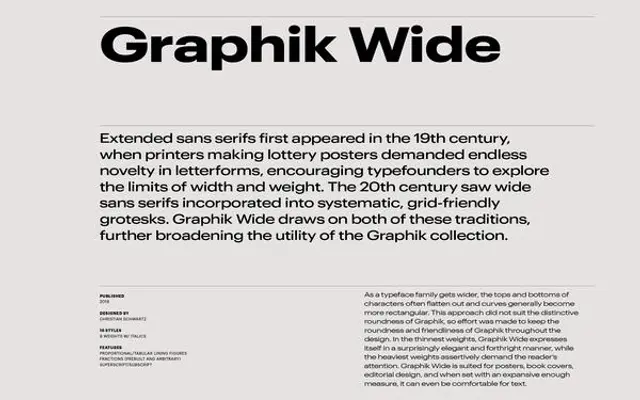
Graphik
Commercial Type · Christian Schwartz · 2009
Christian Schwartz's deliberately vanilla editorial sans, now a sprawling system across nine weights and eight widths with a slab sibling in Produkt.
A neo-grotesque sans by Christian Schwartz, deliberately vanilla and built as an editorial workhorse. Graphik offsets the round bowls typical of a geometric sans with the architecture and proportions of a European grotesk, skipping the baggage of more familiar postwar faces. Low contrast, open counters and compact descenders make it work in tight settings like subheads, captions and labels, while round dots and other human touches keep it warm at title and poster sizes. The family has matured into nine weights and eight widths, from Compact through five degrees of Condensed and out to Wide, and has even spawned a slab companion in Produkt. Remains one of the most-used sans serifs in editorial and brand work.
Commercial Type describe Graphik as a deliberately vanilla editorial workhorse, a hybrid that offsets the round bowls of a geometric sans with the architecture and proportions of a European grotesk, without the baggage of more dogmatic postwar sans serifs.